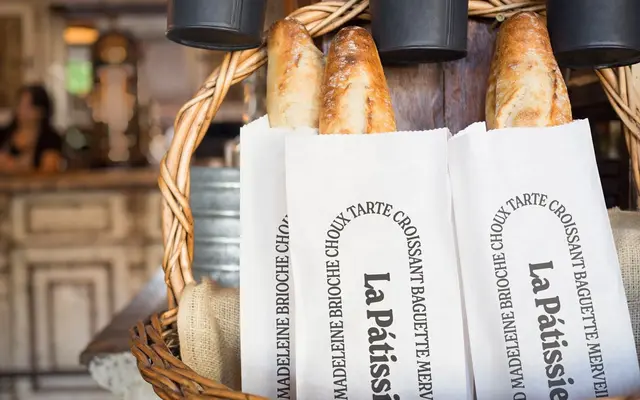
New Spirit Condensed
New Spirit Condensed specimen from Newlyn
A condensed cut of Newlyn's revival of Windsor, the 1905 Stephenson Blake typeface, redrawn across six widths with a full weight range for contemporary use.
Windsor's organic, hand-drawn warmth is preserved here in a condensed form that works across editorial, branding and display settings. The revival reworks the original across six subfamilies spanning upright, italic, condensed and compressed cuts, with weights running from Light to Bold throughout. The foundry frames the design as Arcadian in spirit, drawing on notions of the handmade and the pastoral rather than industrial modernism.
A revival of Windsor (1905), itself an oldstyle serif with organic, hand-drawn qualities and calligraphic stroke contrast. The foundry describes nods to conservative Oldstyle serif typefaces alongside its distinctive Arcadian character.